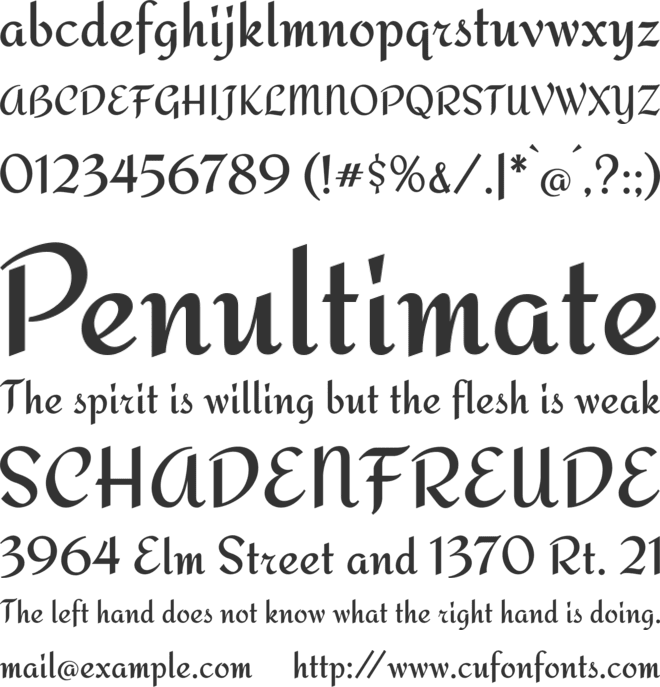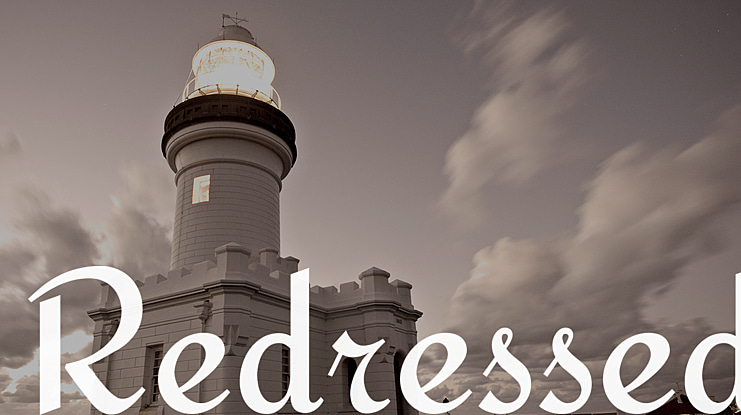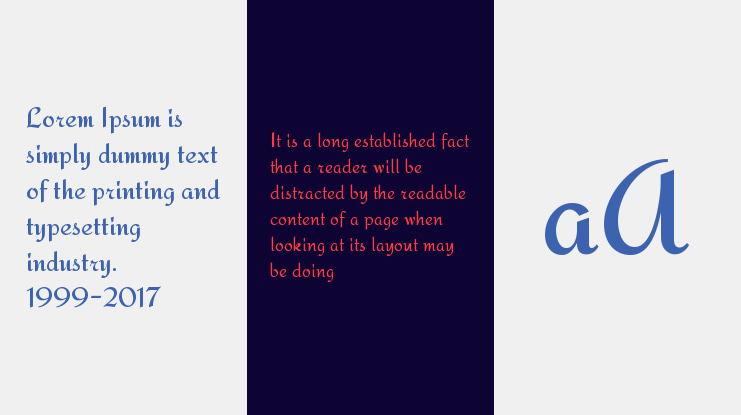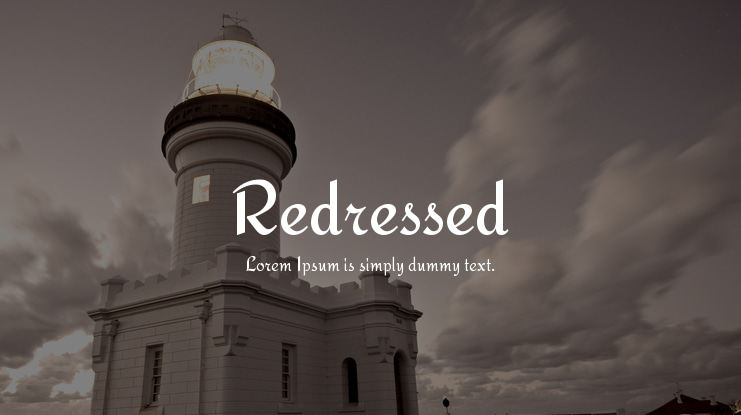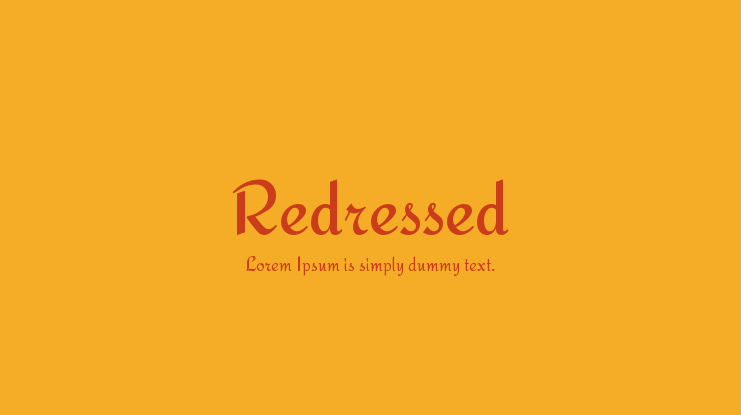
Redressed Font Family
Redressed is a medium weight typeface which blends script and italic letterforms together in an upright non-connecting style. Open spacing and stylish letterforms lend themselves to titling, but also to clean legibility at smaller sizes as body copy.